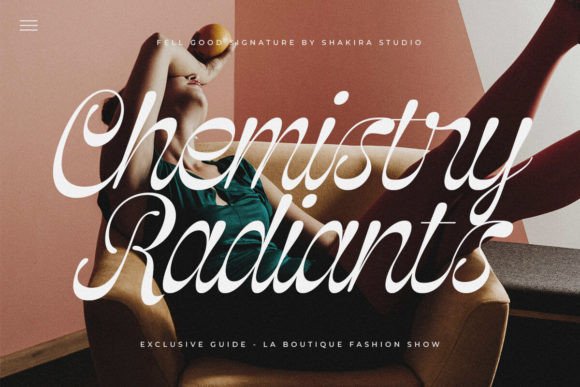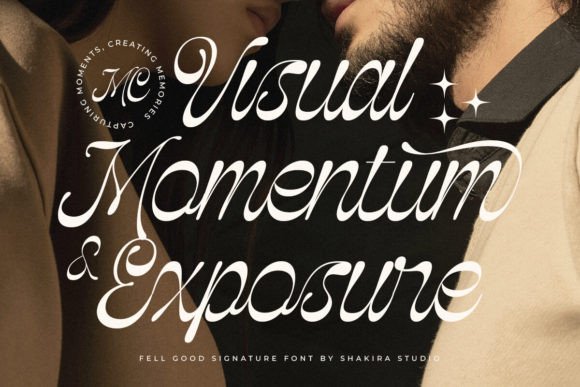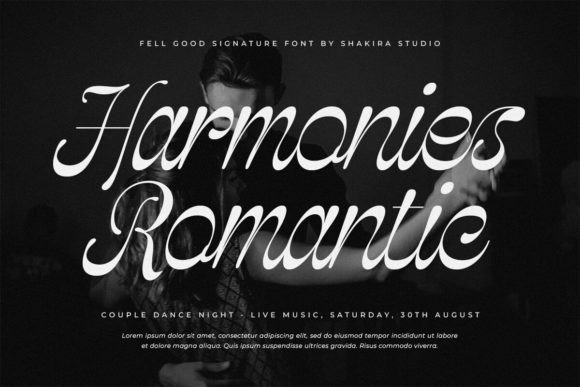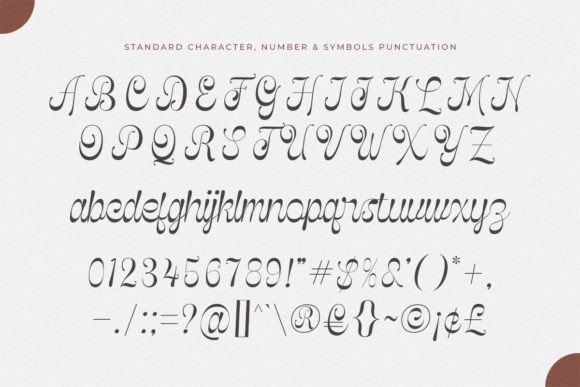
Fell Good Signature Font
Introducing Fell Good Signature, a modern luxury script font that exudes elegance and sophistication. Perfect for creating high-end designs, this versatile typeface offers both regular and italic versions. With its smooth, flowing strokes and stylish alternates and ligatures, Fell Good Signature is ideal for branding, invitations, and editorial projects. Elevate your design with this chic and timeless script font.